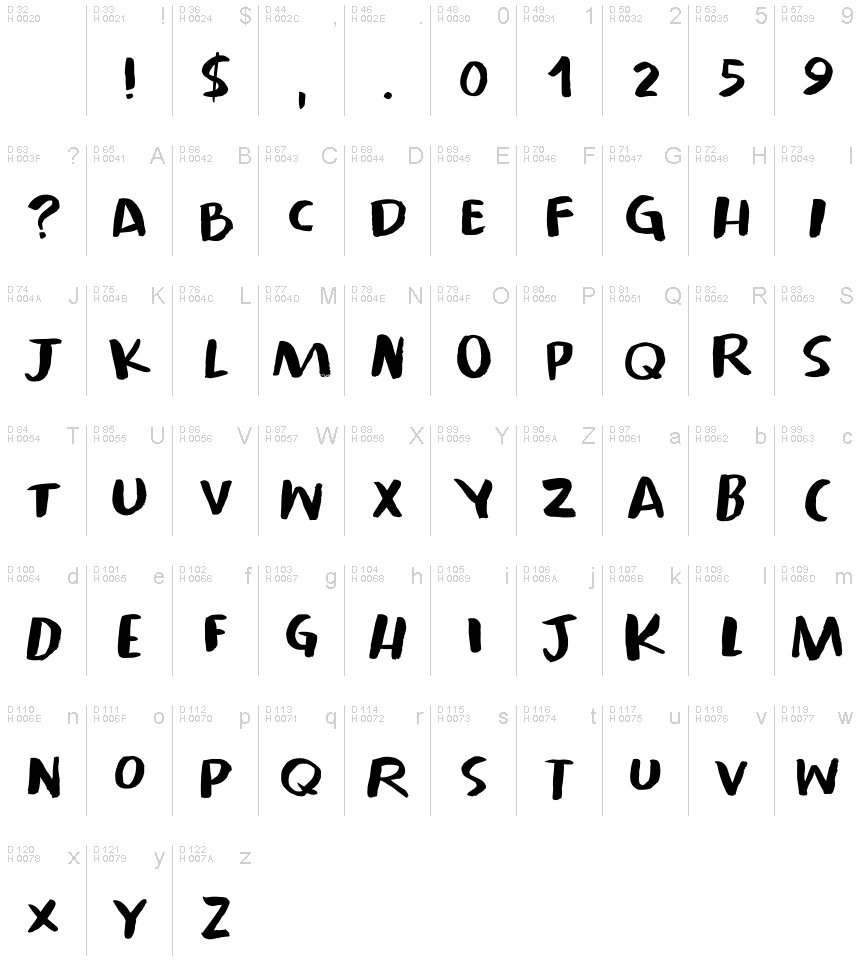
Affordable Afterlife DEMO Regular
Affordable Afterlife font by Hanoded is a bold, brush-style typeface that exudes a playful yet edgy aesthetic. Its hand-painted appearance adds an artistic flair, making it perfect for projects that demand a touch of creativity and personality. The fluid strokes and dynamic curves capture attention, ensuring your message stands out.
Ideal for posters, album covers, invitations, and social media graphics, this free font brings an element of whimsy to any design. Whether you're crafting vibrant event promotions or eye-catching branding materials, the Affordable Afterlife font offers versatility while maintaining its unique charm.